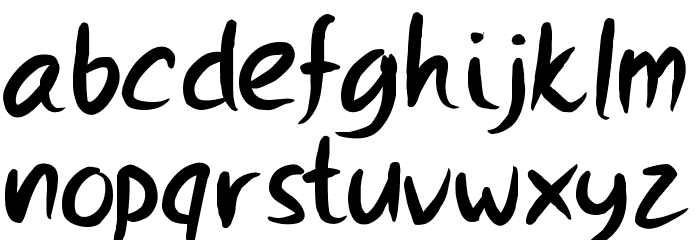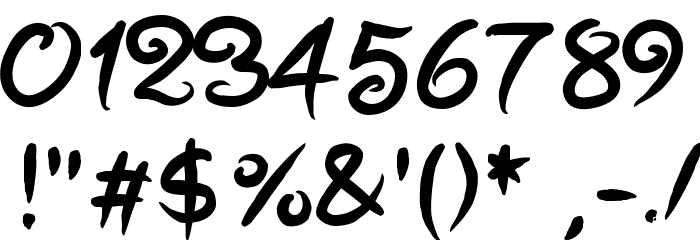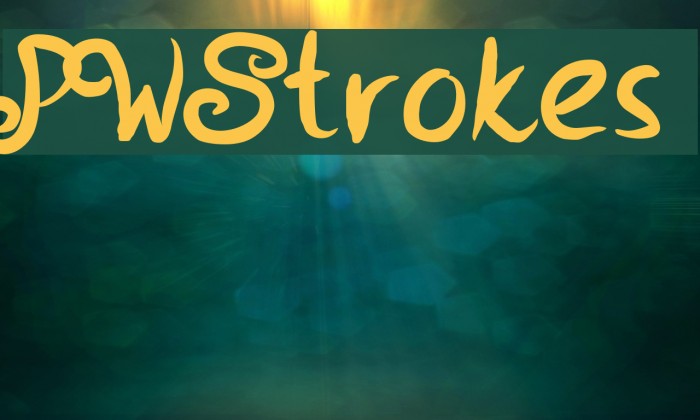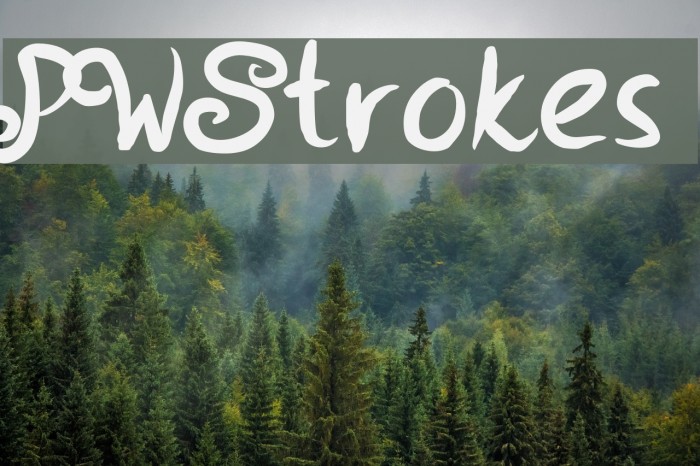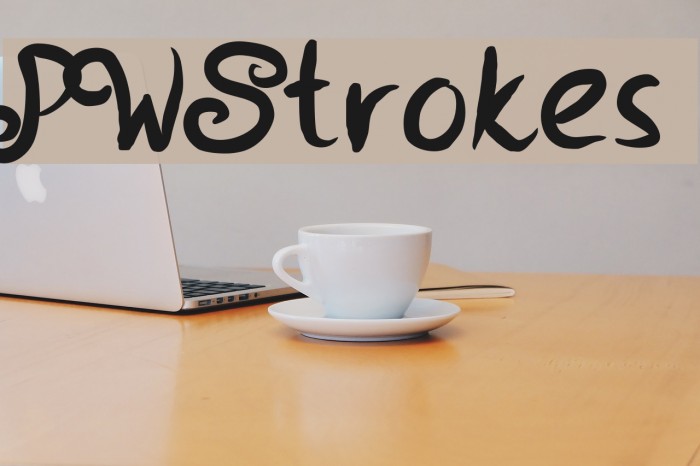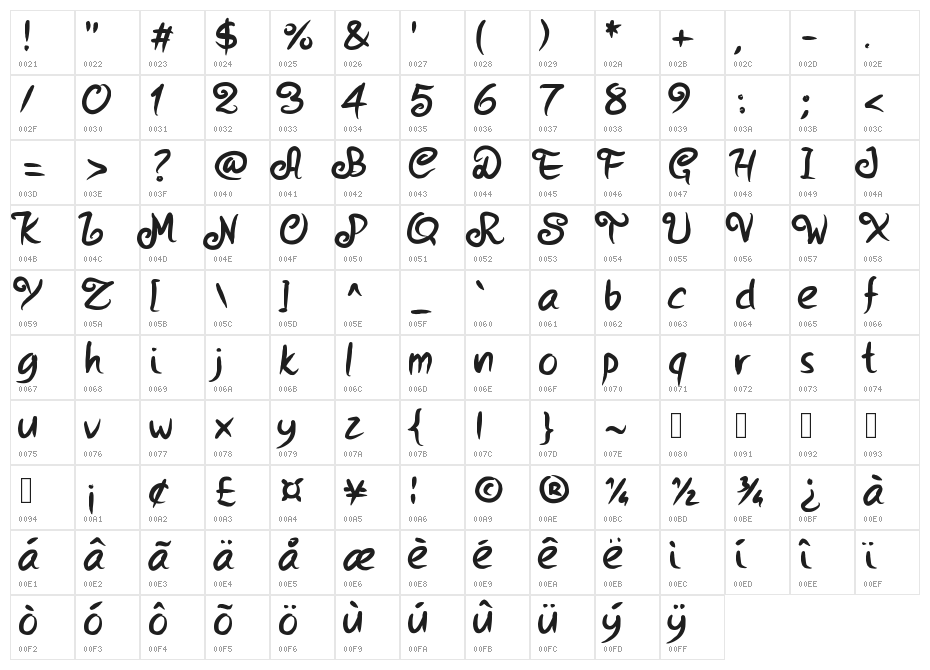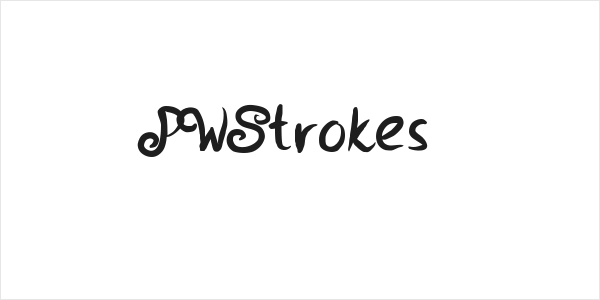
PWStrokes Font
This font features a bold, expressive style with a handwritten feel. The characters are fluid and dynamic, with a playful yet sophisticated appearance. The strokes are thick and consistent, giving the font a strong presence. The uppercase letters have a unique flair, with some characters featuring loops and swirls that add to the overall charm. The lowercase letters maintain a cohesive look, complementing the uppercase with their rounded and smooth forms. Numbers and special characters are crafted with the same attention to detail, ensuring a harmonious look across all elements.
A bold, expressive handwritten font with fluid strokes and dynamic character forms.
- Proposed Projects: Ideal for creative projects such as logos, posters, and branding materials that require a personal touch.